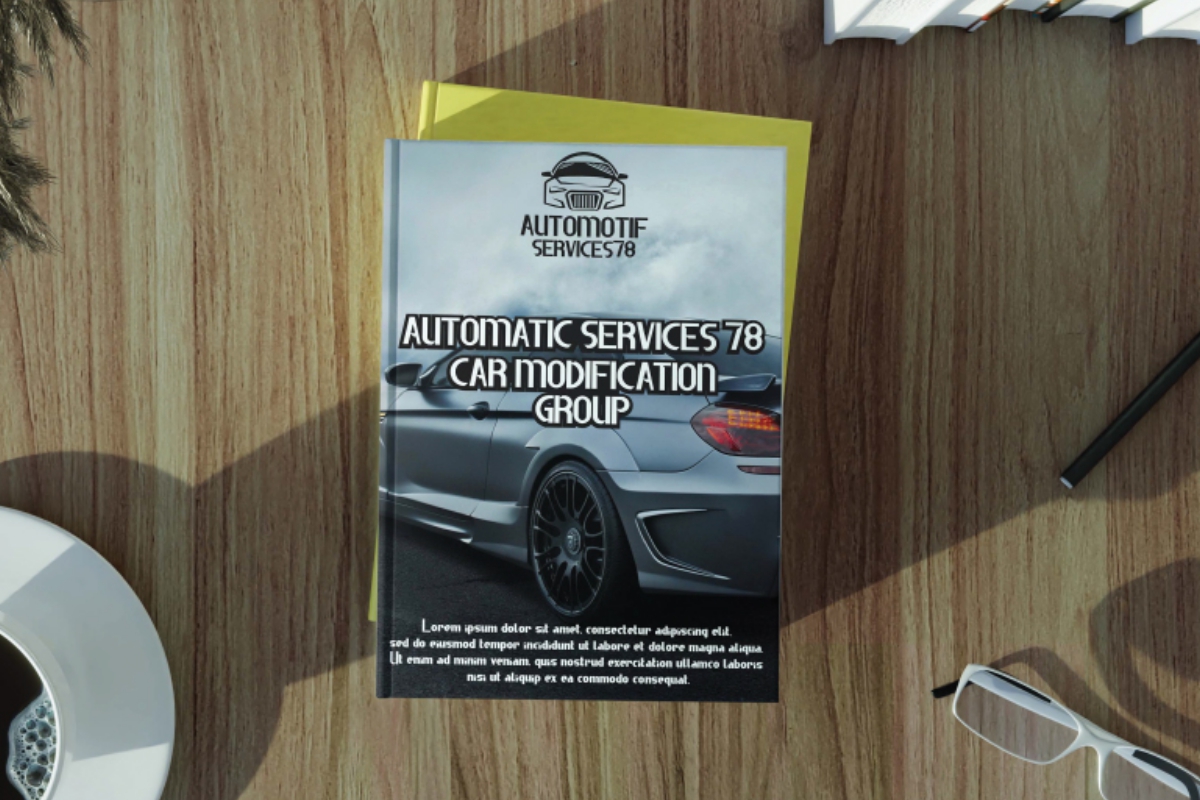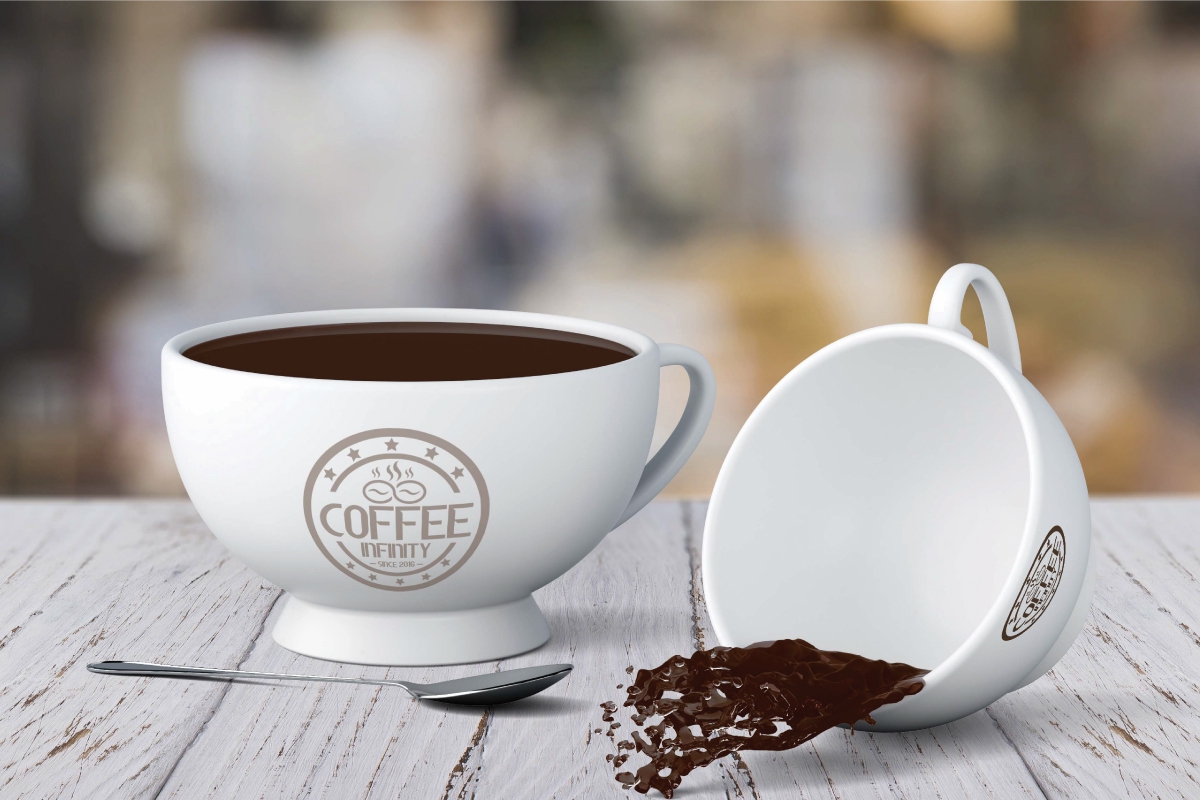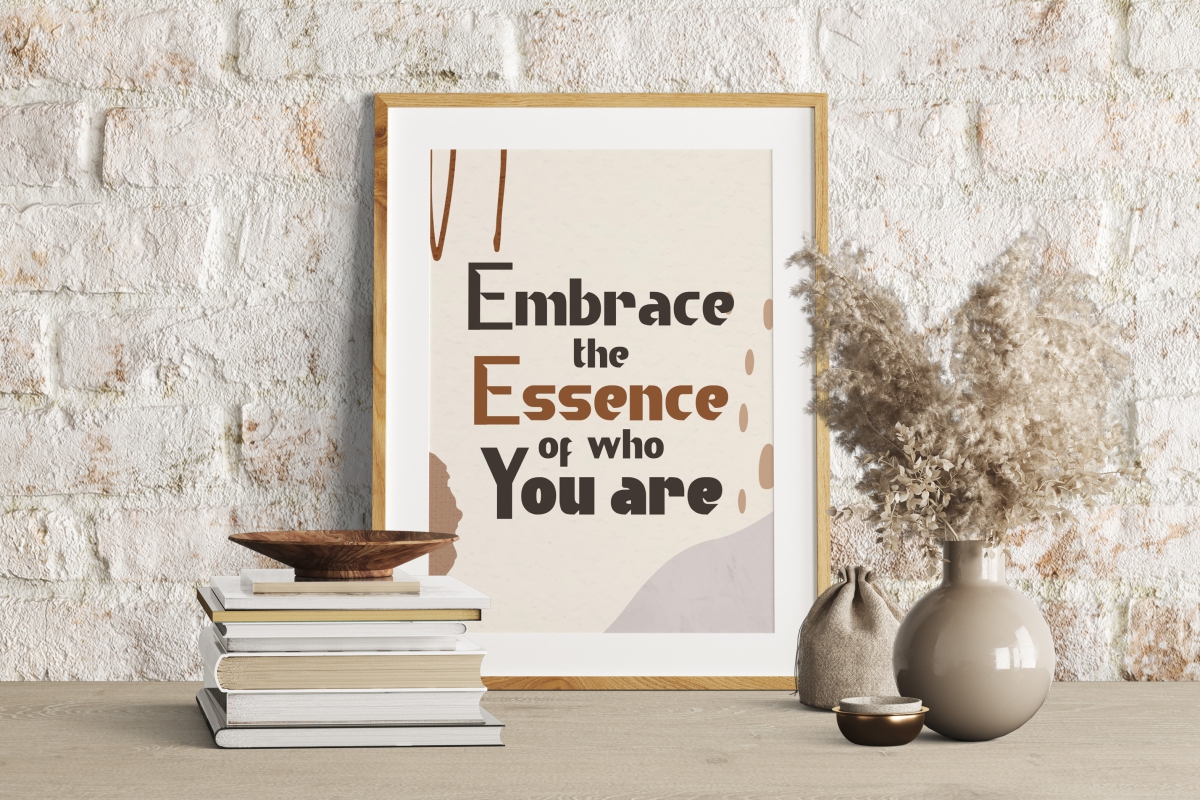
Thumpers Display Font
This is a modern display font with five different styles : Regular, Light, Italic, Bold, and Bold Italic. It will be perfect for many industries, such as automotive, café, craft, fashion brand, game, perfume, printing, race, sport, etc.